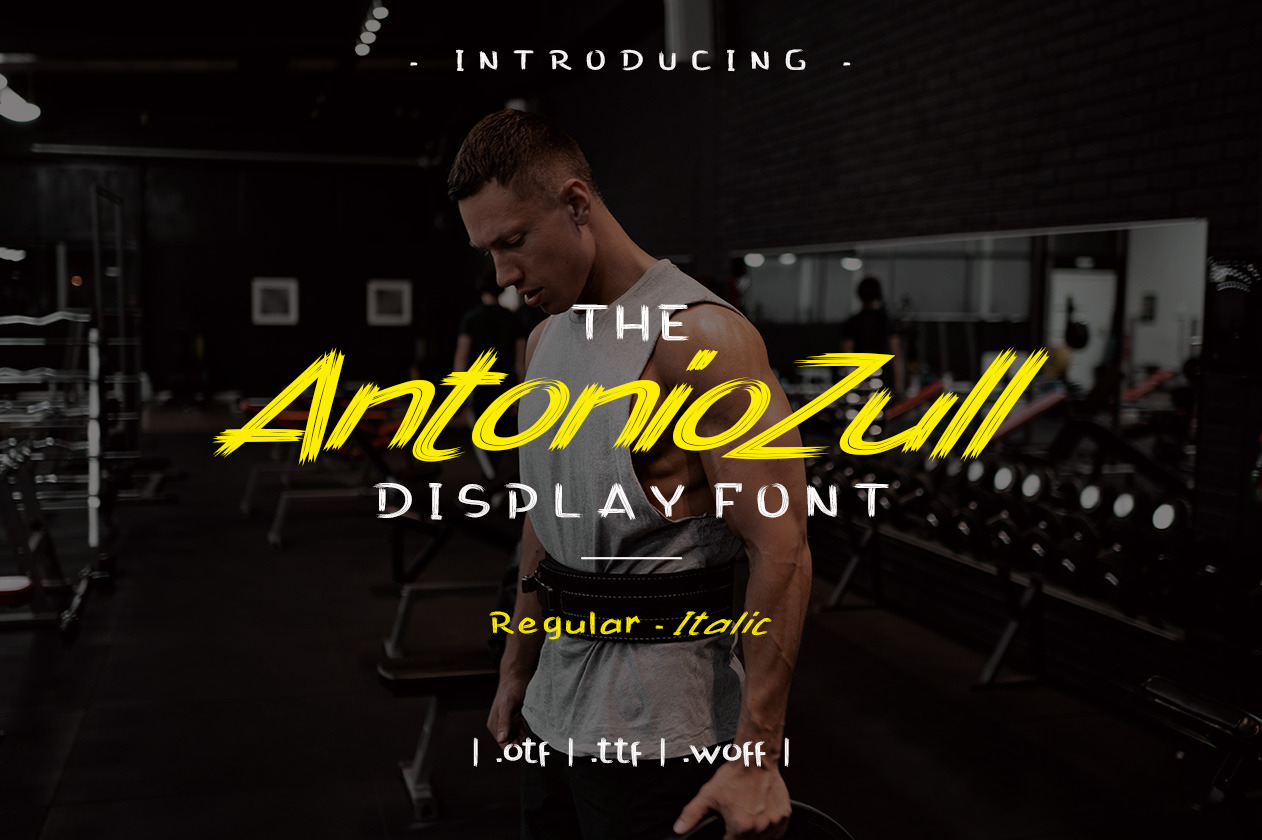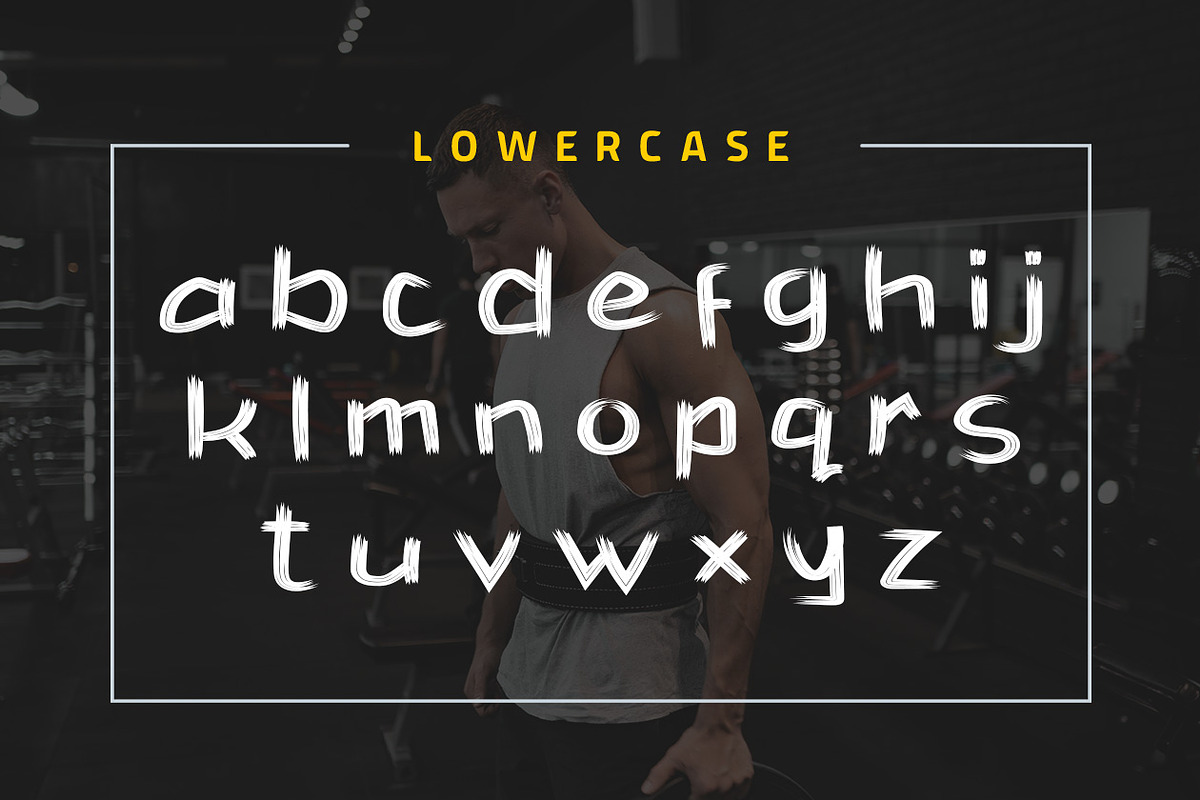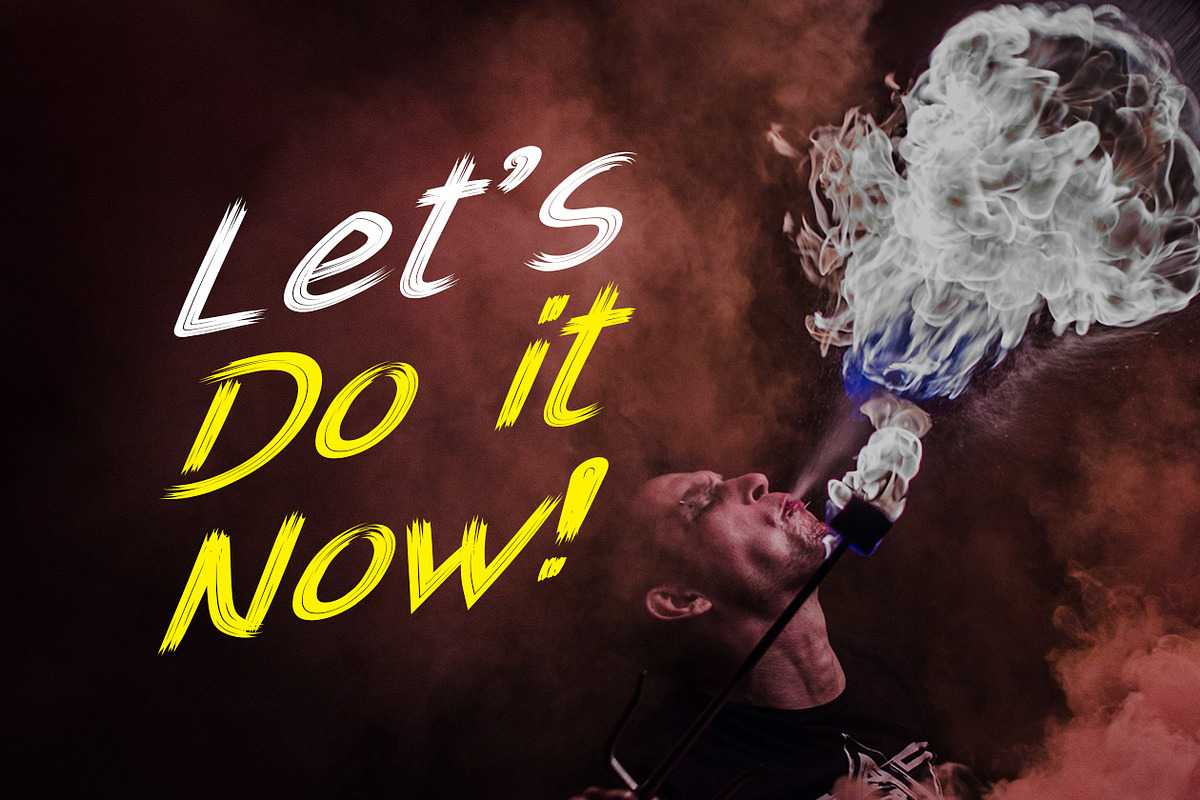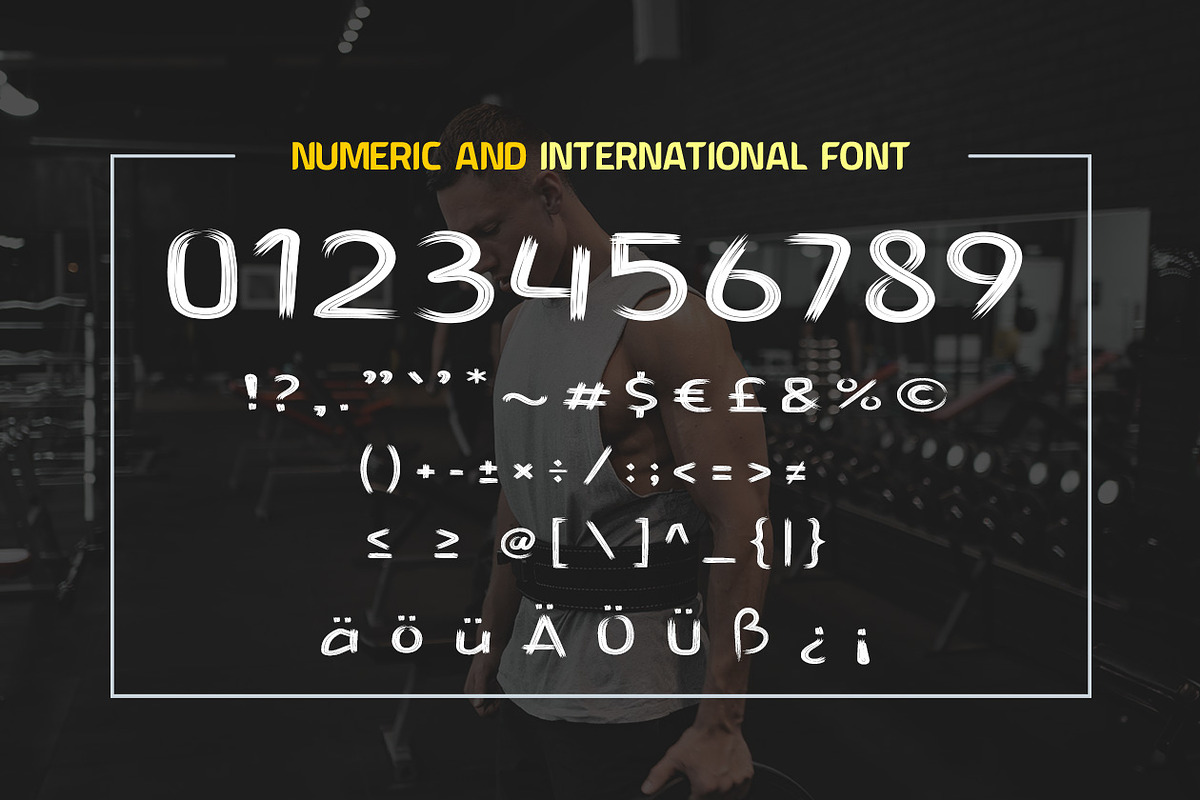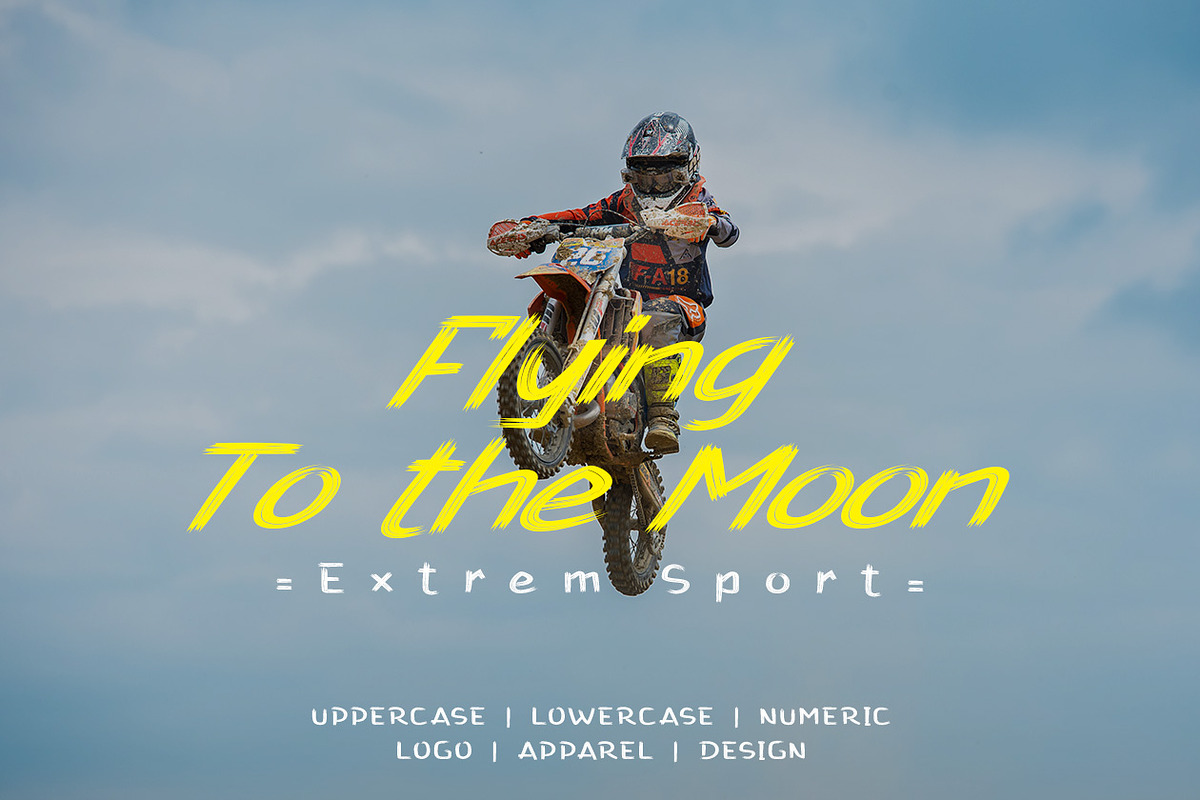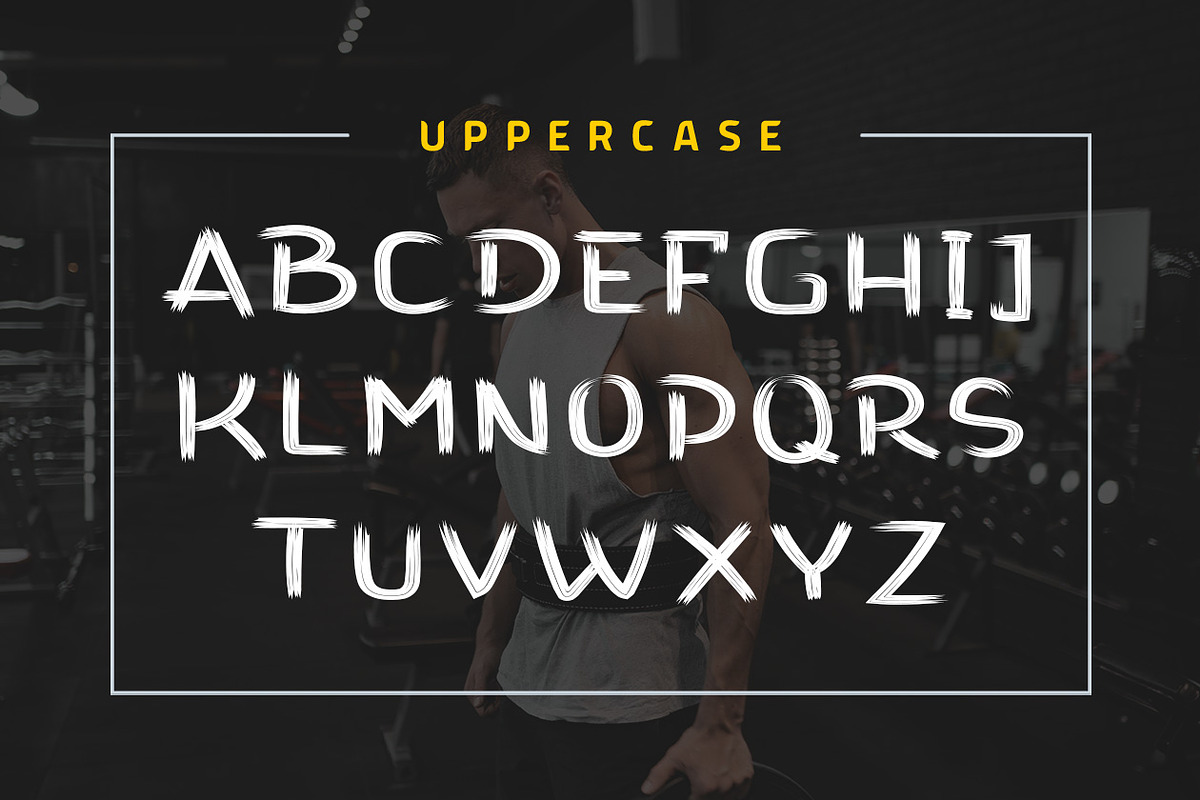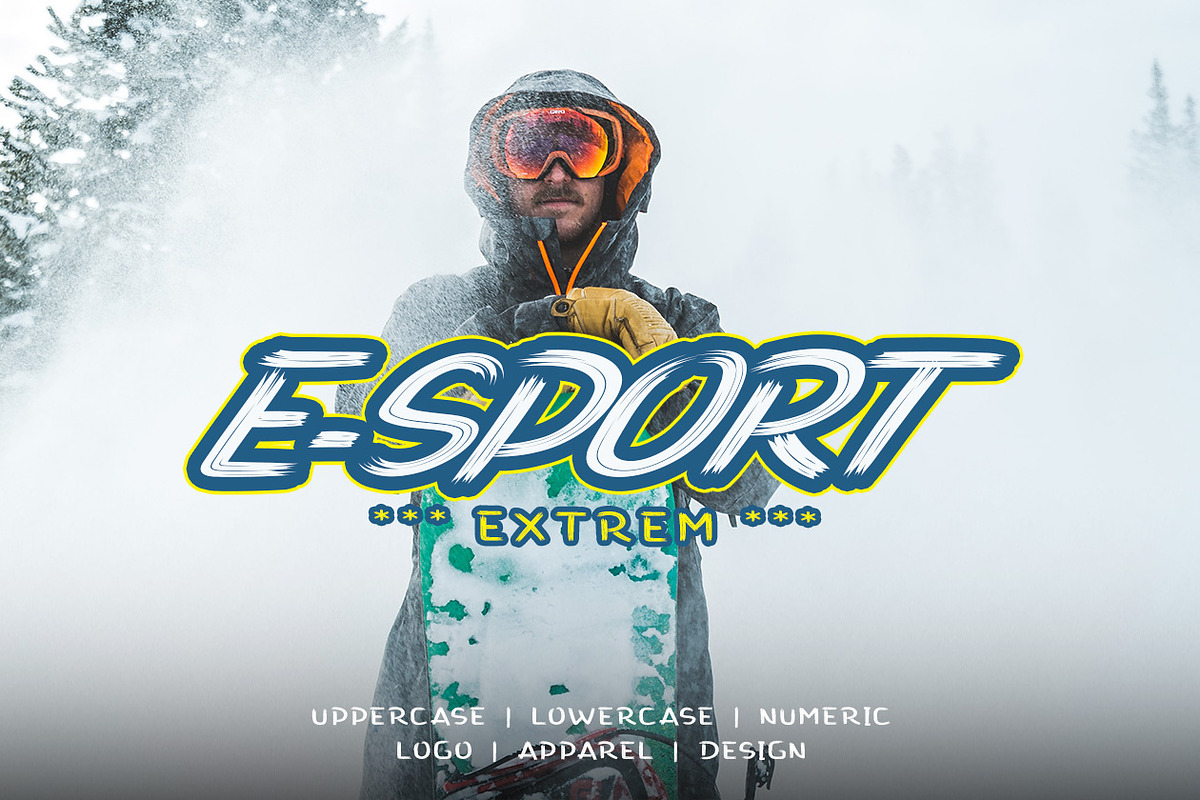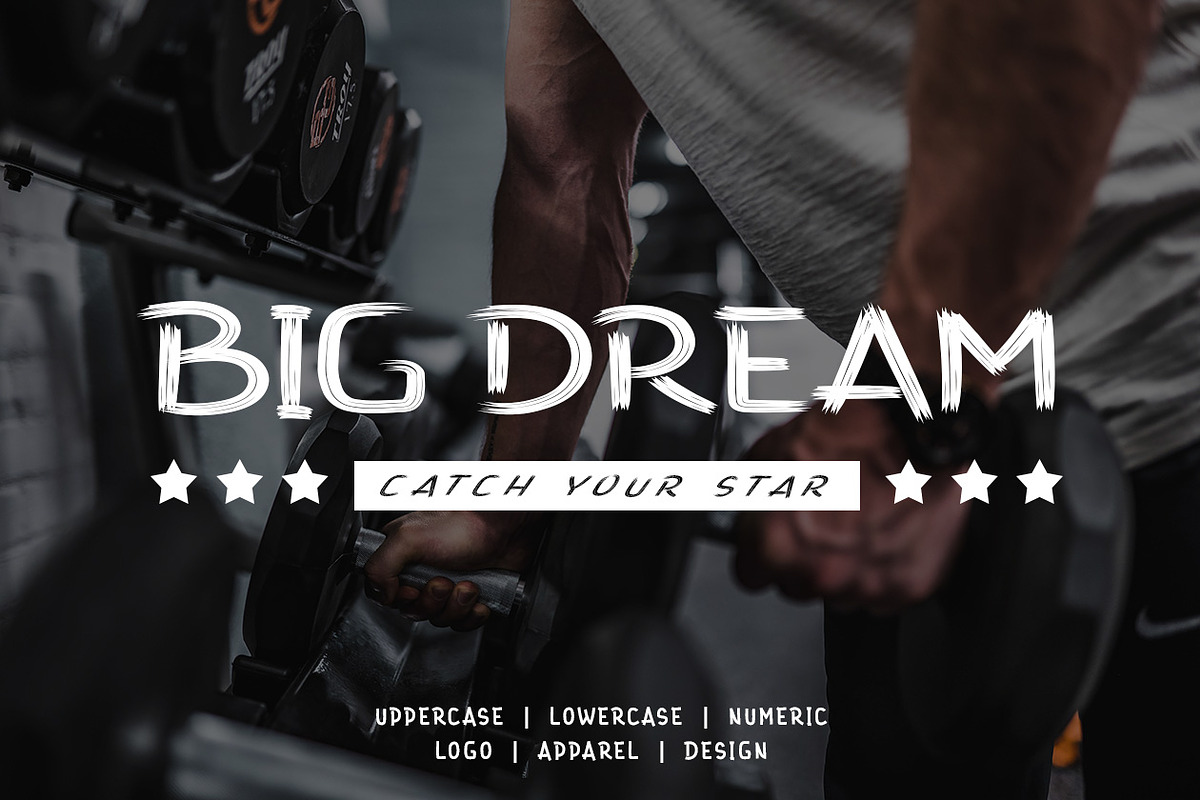
Antonio Zull Brush Font
Antonio Zull Brush font very suitable for Game App, poster, for logo, music cover, clothing, and many many cool design projects. Antonio Zull Brush font is uppercase and lowercas. Numeric and international font. Regular and Italic Font.